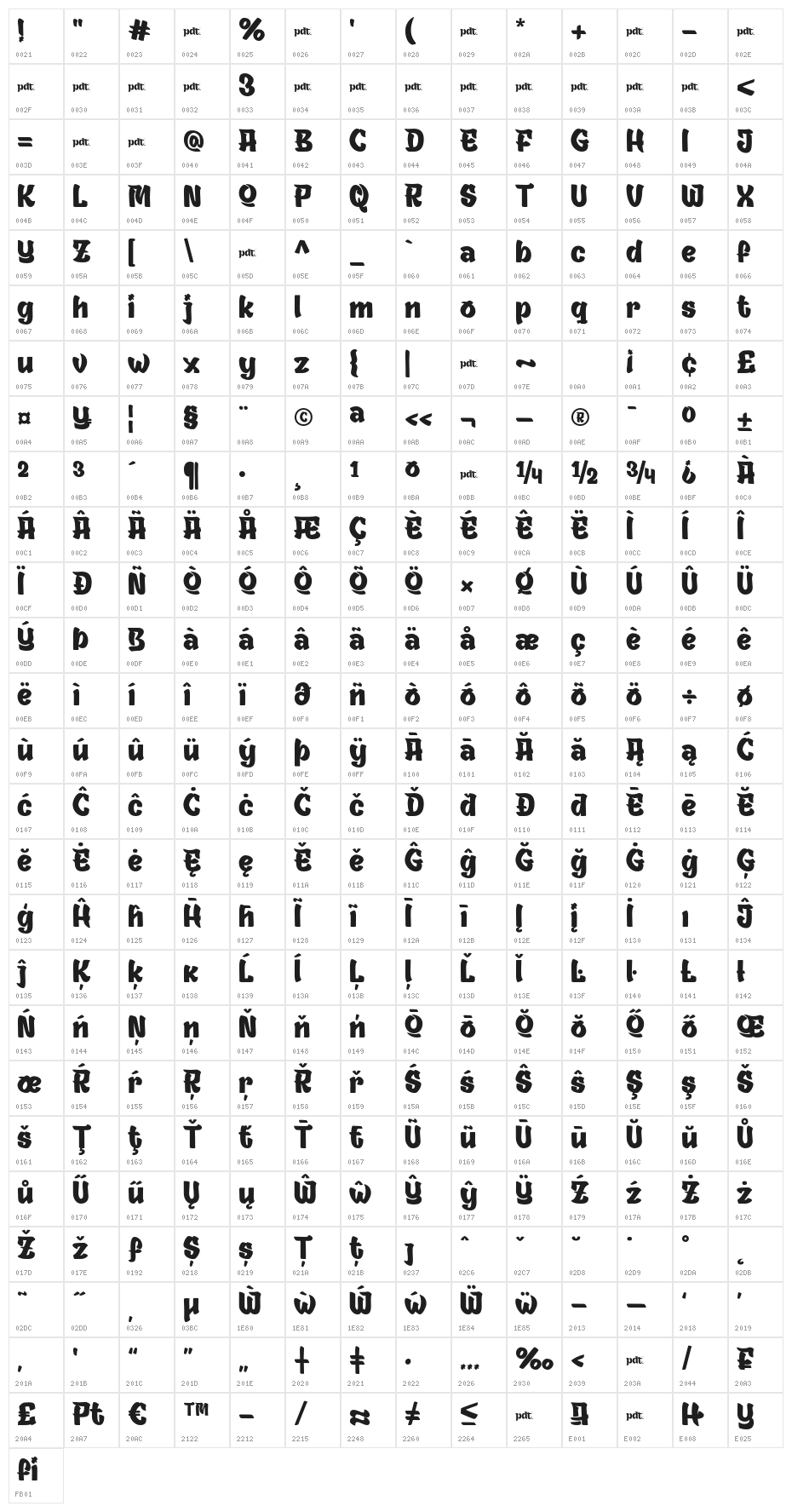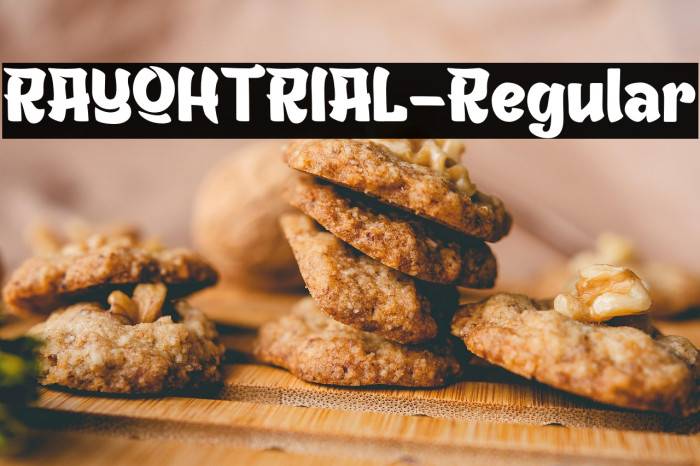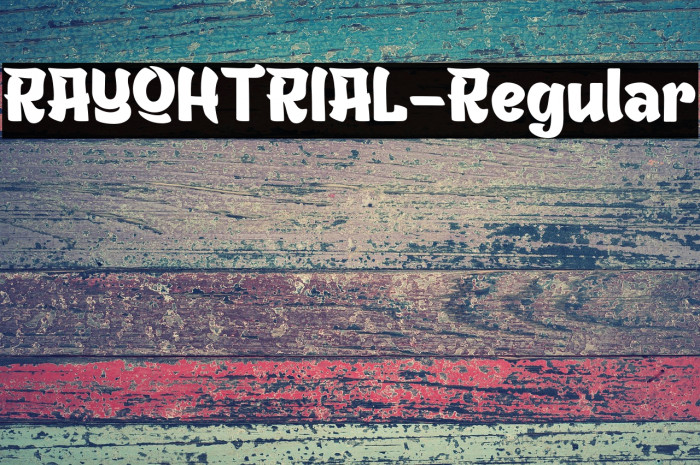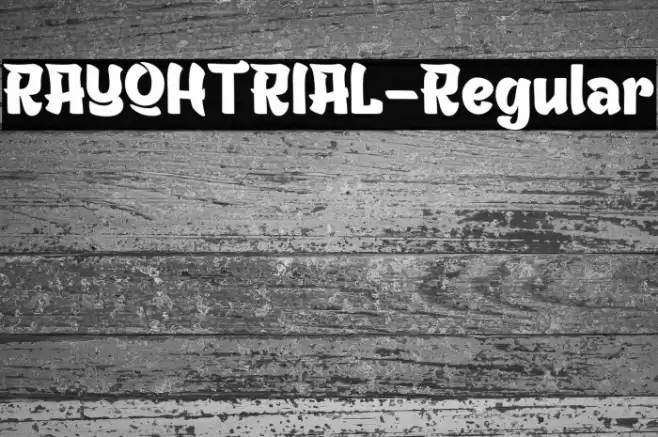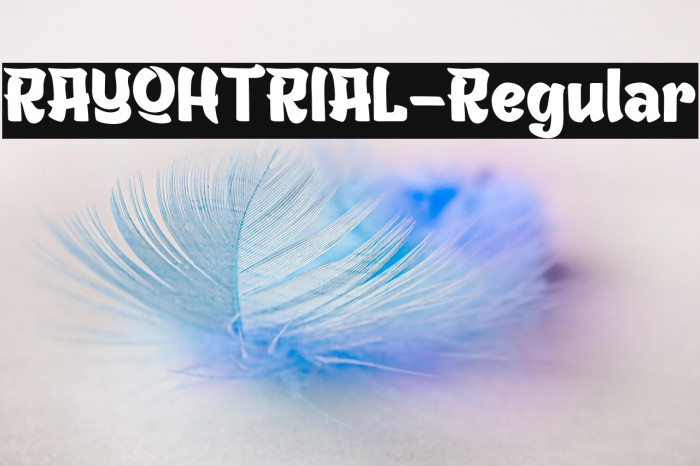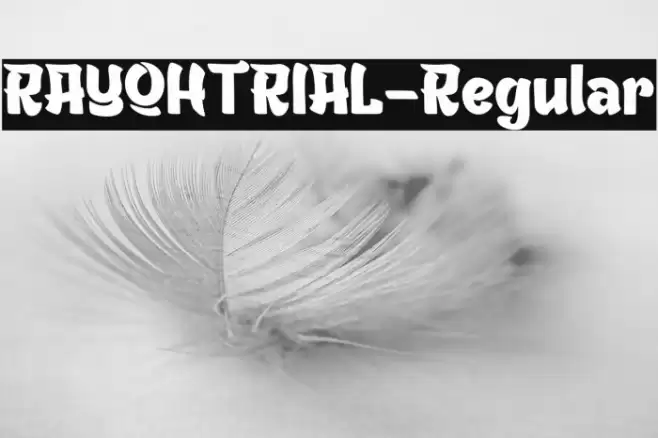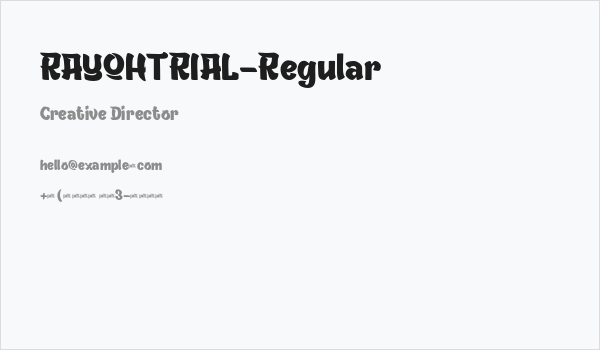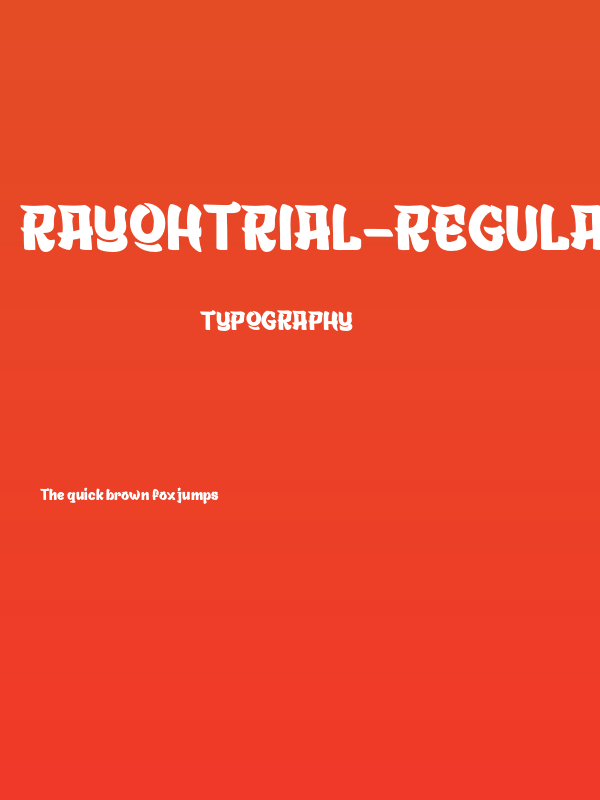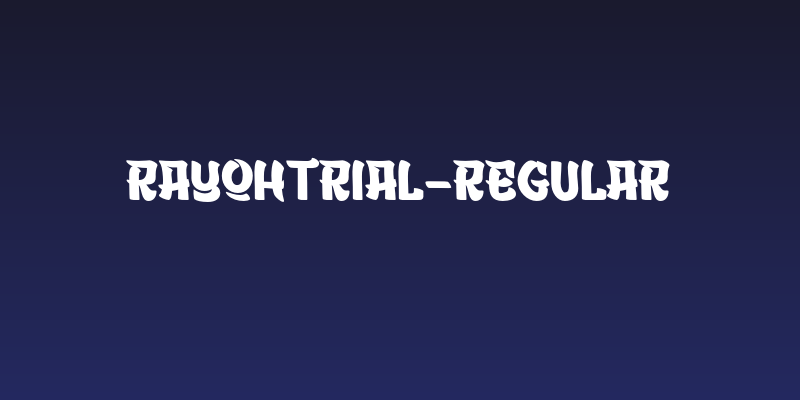
RAYOHTRIAL-Regular Font
RAYOHTRIAL-Regular Description
This font features a bold and playful design with a strong presence. The characters are thick and rounded, giving a sense of warmth and approachability. The uppercase letters have a unique flair with slightly exaggerated serifs, while the lowercase letters maintain a consistent style that complements the uppercase. The numbers and special characters are equally bold, ensuring readability and a cohesive look across all text. This font's distinct style makes it suitable for projects that require a fun and engaging appearance.
| Overall Style | Playful, Fun |
| Proposed Projects | Ideal for children's books, playful branding, posters, and event invitations. |